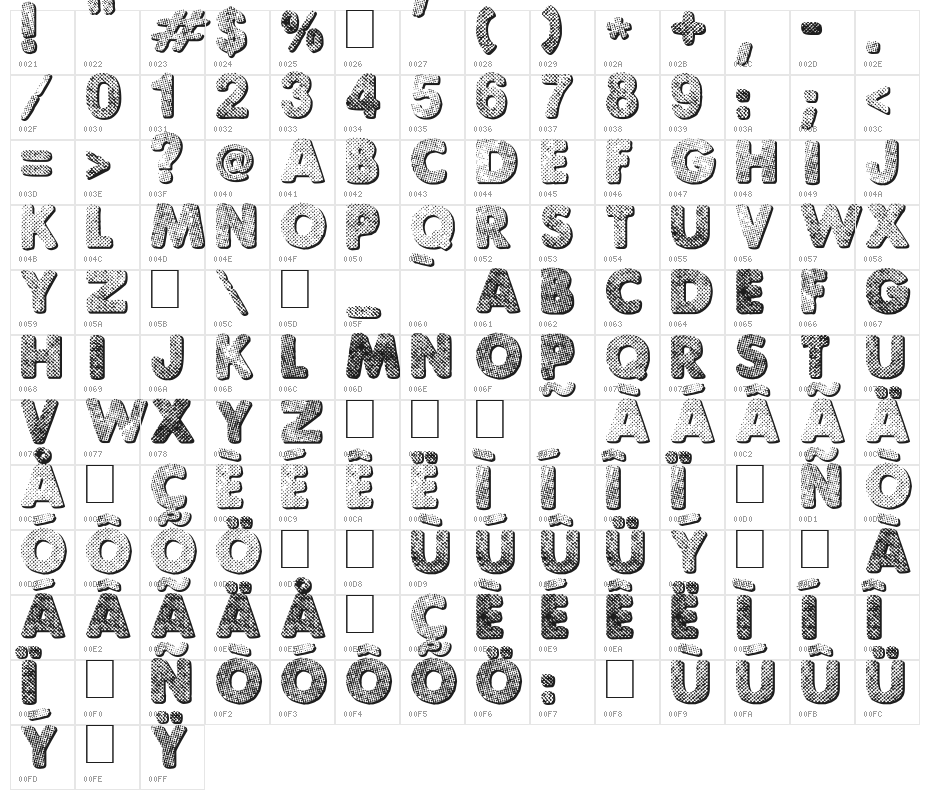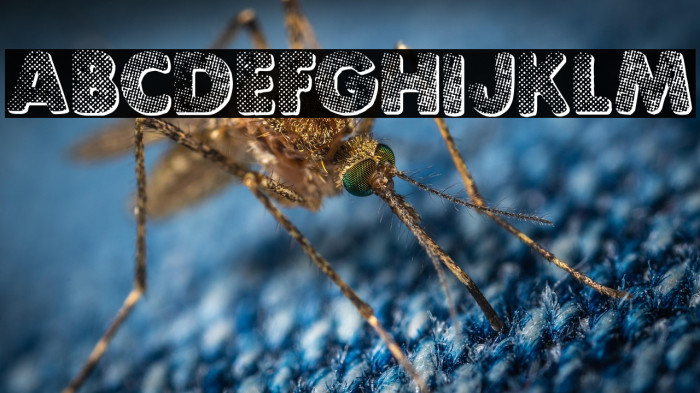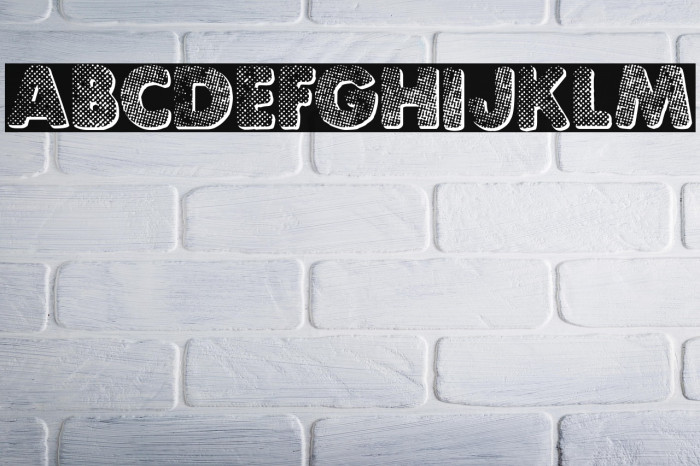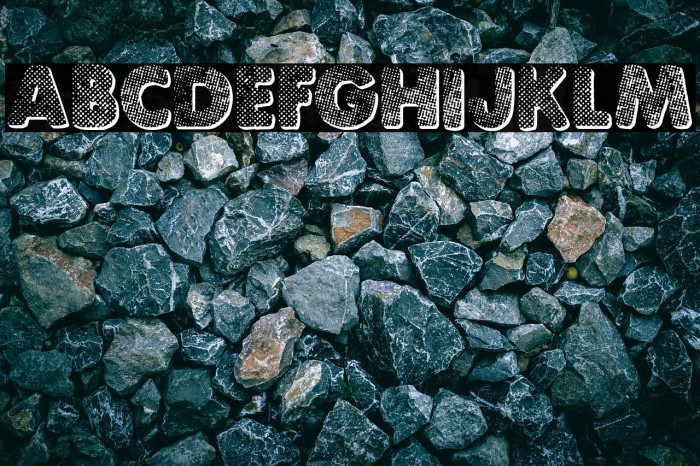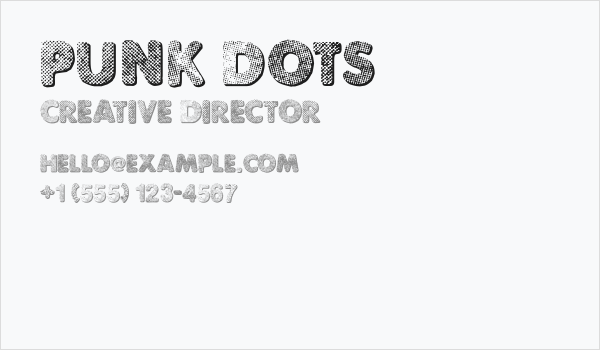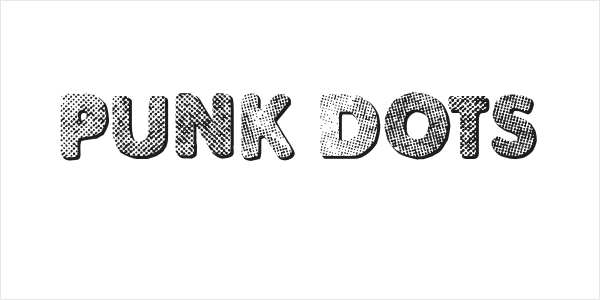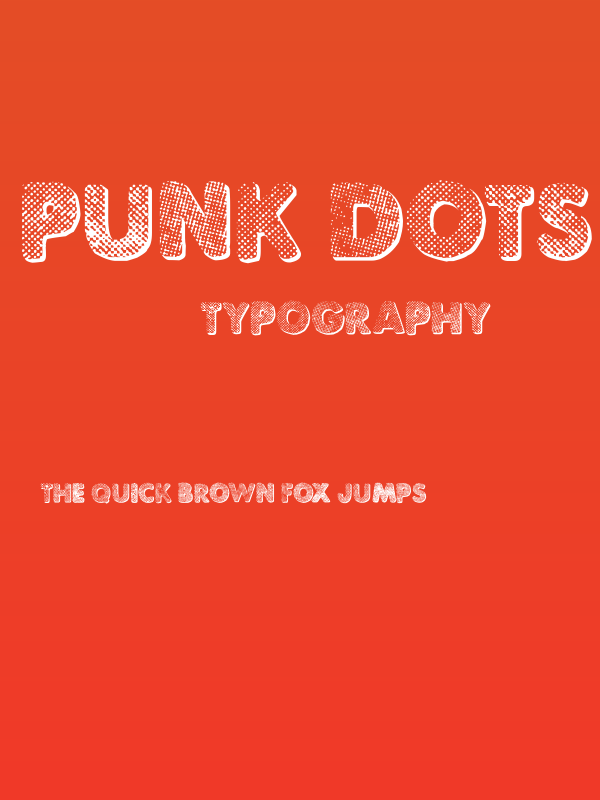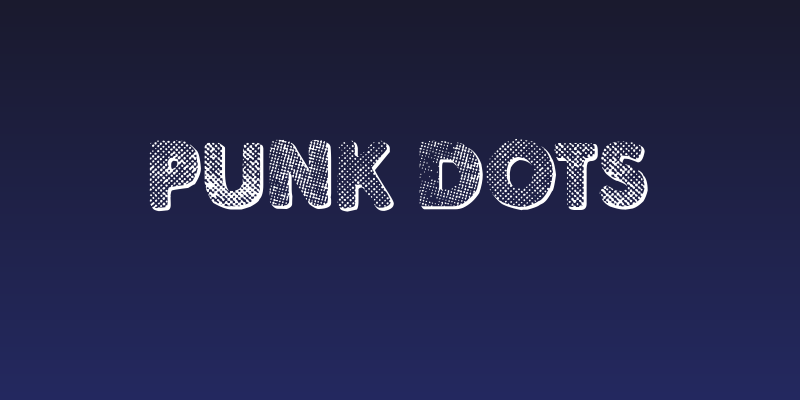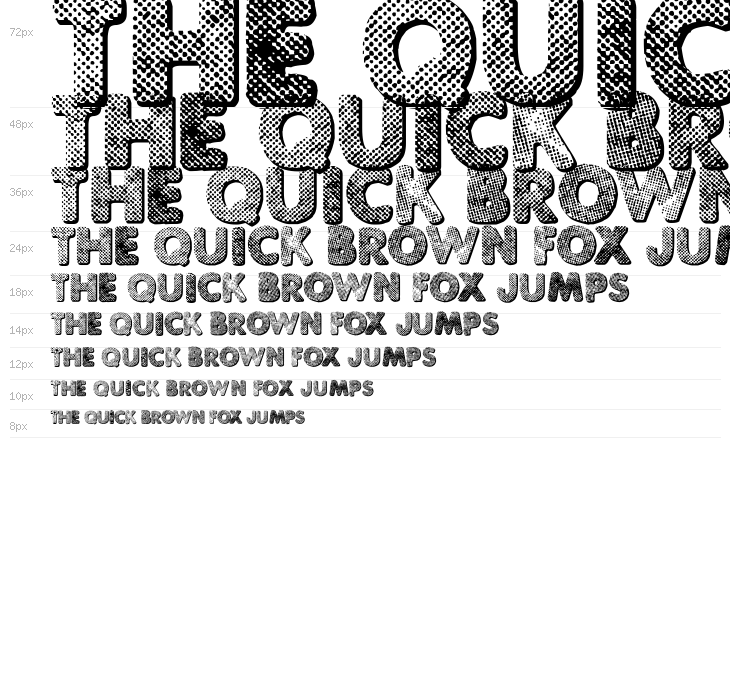
Punk Dots Font
Punk Dots Description
This font features a bold, playful style with a distinct dotted pattern reminiscent of comic book art. Each character is filled with a halftone dot texture, giving it a unique, retro aesthetic. The letters are uppercase and lowercase, with numerals and a variety of special characters. The boldness of the font makes it stand out, while the dotted texture adds a layer of visual interest and depth. The characters are slightly rounded, contributing to a friendly and approachable feel. This font is ideal for projects that aim to capture a sense of fun and nostalgia.
| Overall Style | Retro, Playful |
| Use Case | Headlines, Posters, Branding |
| Proposed Projects | Perfect for comic book titles, retro-themed posters, playful branding, and eye-catching headlines. |